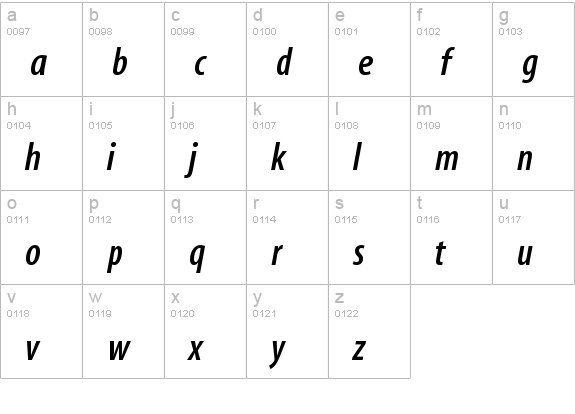
Myriad Semibold Condensed Italic Font Details
Myriad Semibold Condensed Italic is a sub-bold, structured, condensed-width, italic variant in the Myriad typeface family \xE2\x80\x94 well suited to sub-headlines and emphasised passages.
Myriad Semibold Condensed Italic is a dynamic and versatile typeface that exudes modernity and sophistication. Its bold and condensed design makes it perfect for adding emphasis and style to any project, from branding to editorial design. The italicized slant adds a touch of elegance and flair, making it stand out from the crowd. This font is not only visually striking but also highly practical, offering excellent readability even in small sizes. Whether you're creating a sleek logo or designing a sleek magazine layout, Myriad Semibold Condensed Italic is sure to make a bold statement. And the best part? This fantastic font is available for free download at FontsMarket.com, making it accessible to designers and creatives of all levels. Don't miss out on the opportunity to elevate your design projects with the contemporary charm of Myriad Semibold Condensed Italic. Download it today and let your creativity soar!